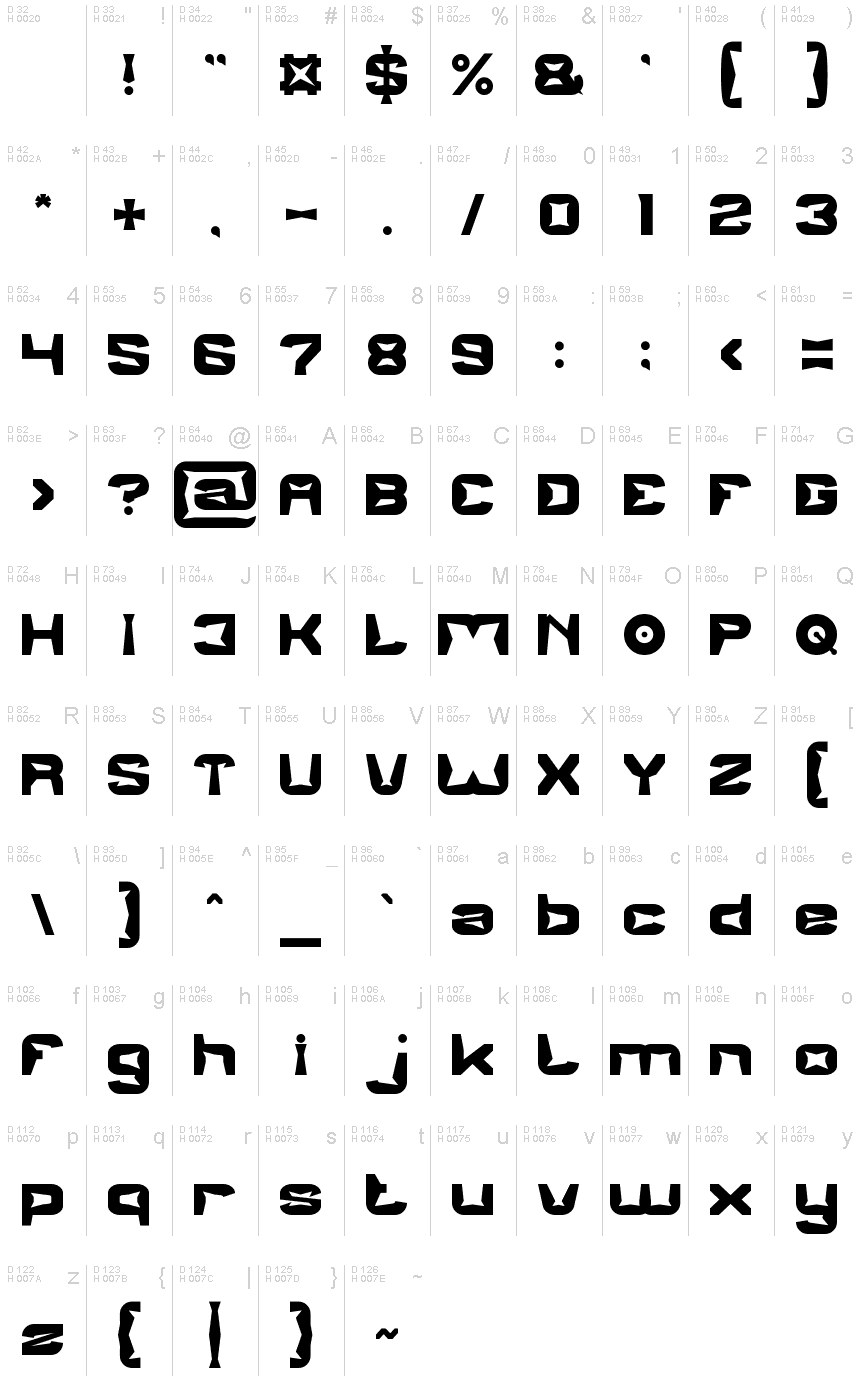
MISSION TO MARS
Mission to Mars, a display font crafted by weknow, propels typography into the cosmos with its futuristic style. Boasting a bold weight that commands attention and an expanded width that asserts its presence, this typeface is engineered to stand out. Its aesthetic appeal lies in its forward-thinking design that evokes the essence of interstellar exploration and technology.
The sleek lines and sharp angles of Mission to Mars give it an ultramodern look, making it an ideal choice for projects that require a touch of sci-fi elegance or are themed around innovation and space travel. Whether used for movie titles, tech startup branding, or event posters for the next big science fiction convention, this typeface has the potential to elevate creative works with its celestial charisma.
Embrace the spirit of adventure and let your designs boldly go where no typography has gone before with Mission to Mars – where every letter is a step into the future.